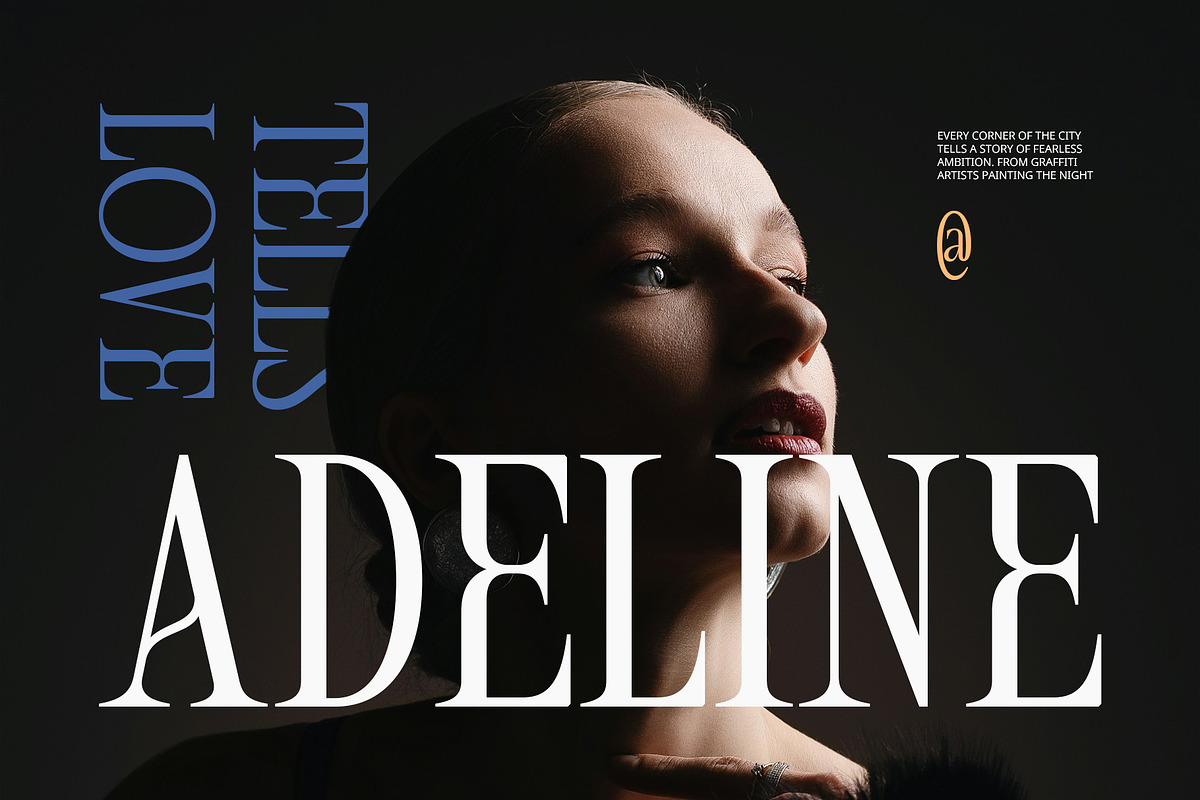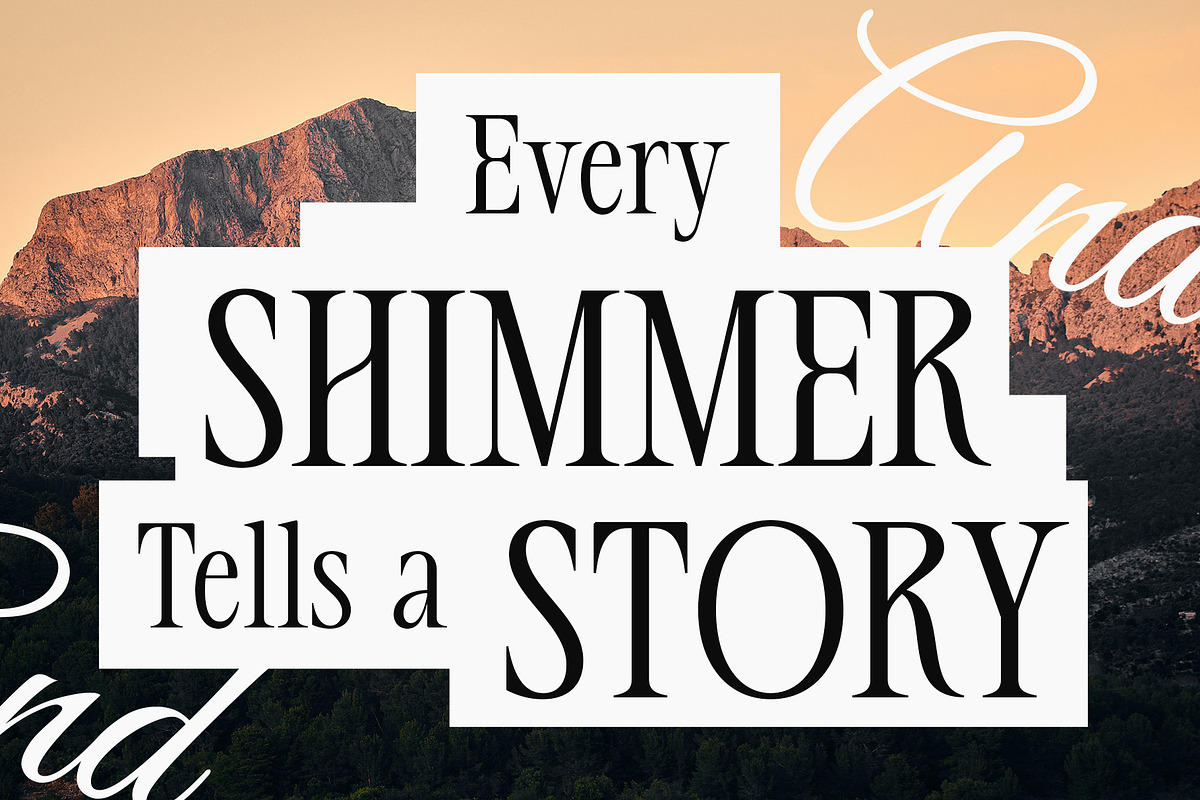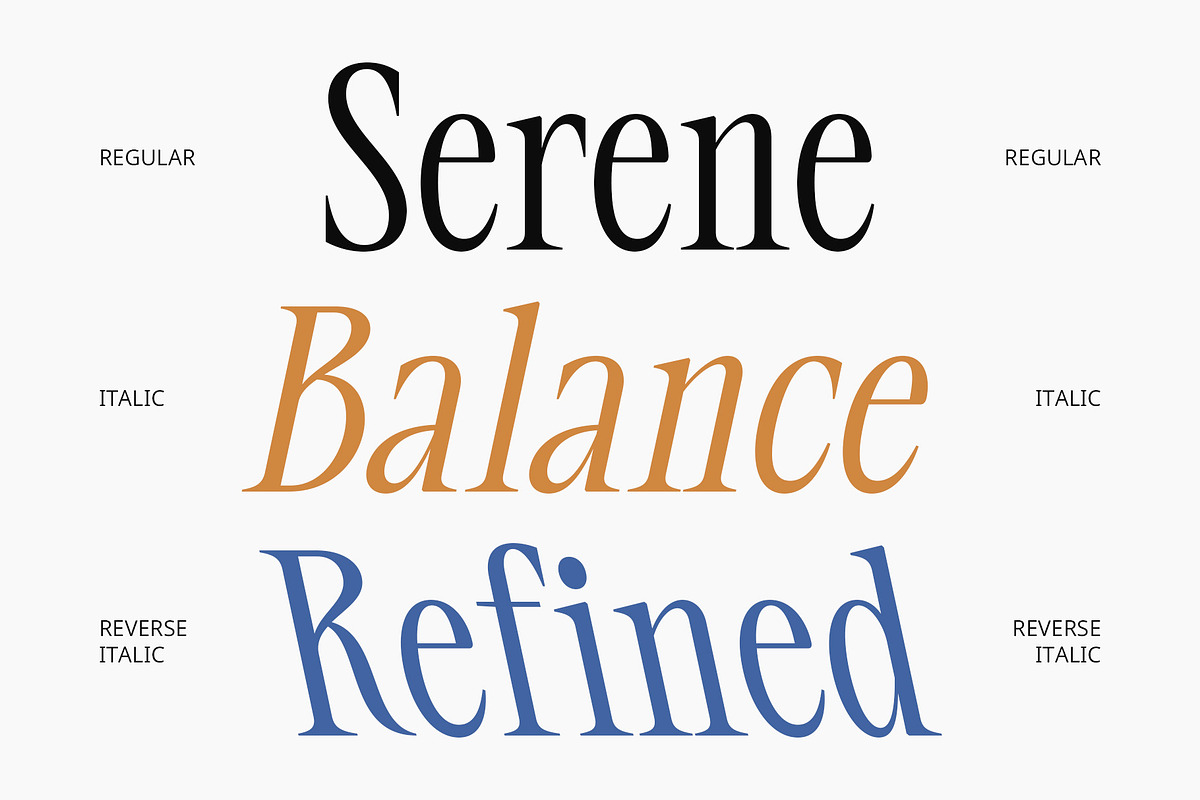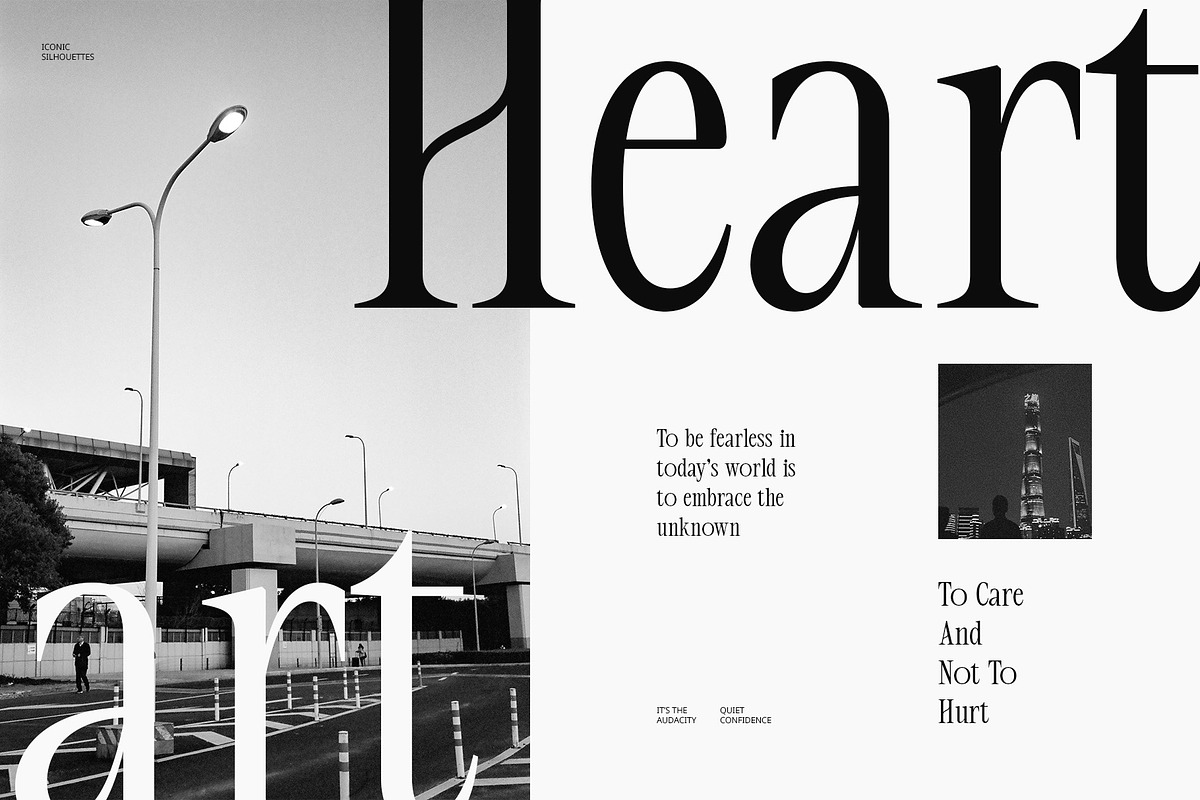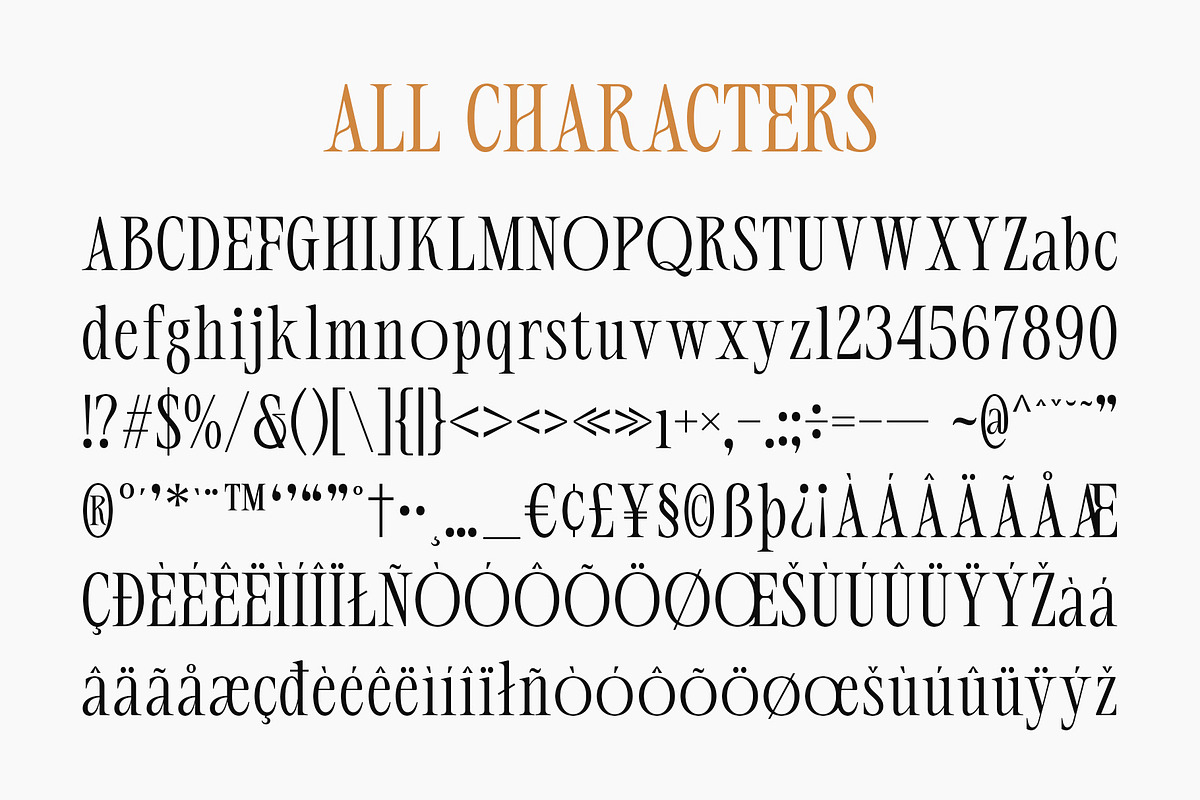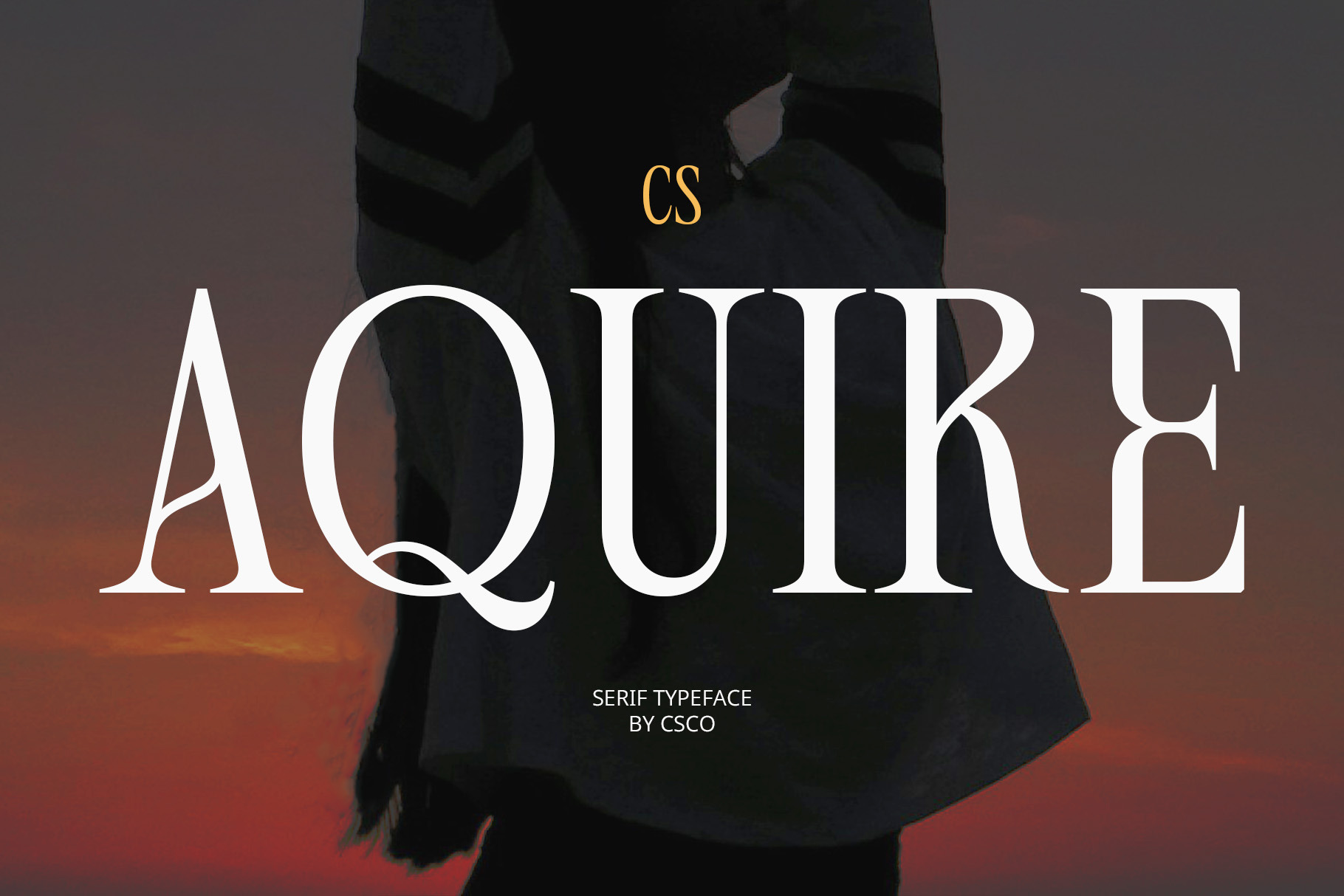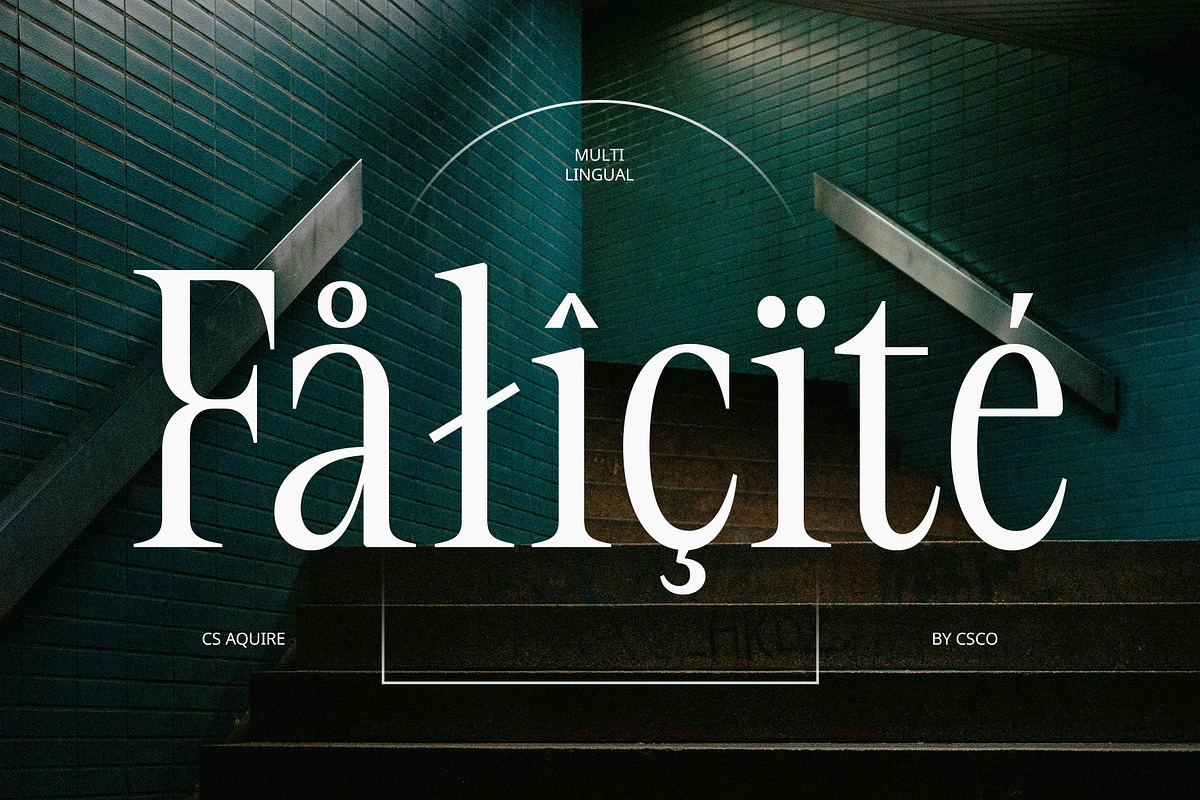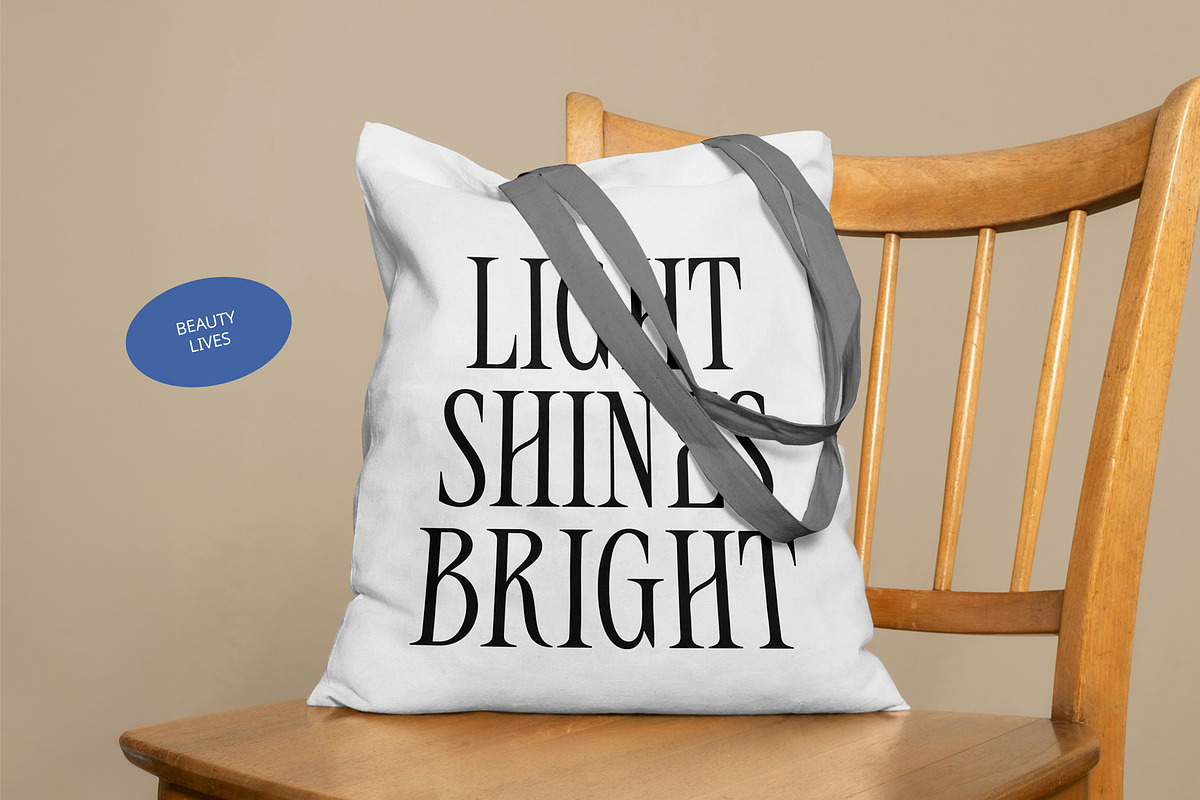
CS Aquire – Condensed Font
CS Aquire – Condensed Font: Elegance Refined Through Precision
Minimalist Structure with a Modern Serif Form CS Aquire is a modern serif font defined by its long, condensed serifs and clean structural design. With a focus on minimalism and refined proportions, this typeface delivers a sleek and contemporary appearance while retaining the elegance and authority of classic serif styles. Its narrow, tall letterforms offer a sophisticated and modern silhouette.
Condensed Design for Efficient and Stylish Layouts The condensed nature of CS Aquire makes it perfect for space-conscious designs without sacrificing visual impact. Its elongated letterforms are ideal for editorial layouts, magazine headlines, and luxury branding where clarity and style must coexist. This structure enhances the font’s usability in both digital and print formats.
Contemporary Elegance with Timeless Appeal CS Aquire blends timeless serif elegance with a distinctly modern tone. The precise lines and understated curves exude sophistication, offering a sense of high fashion and premium quality. Whether used for upscale logos, packaging, or refined typographic compositions, the font communicates grace and professionalism.
Perfect for High-End Branding and Editorial Design Designed to meet the demands of luxury aesthetics, CS Aquire is an excellent choice for high-end branding, fashion publications, and modern editorial projects. Its minimalism and elegance make it versatile across industries where a timeless, stylish impression is essential.
- CS Aquire Regular
- CS Aquire Italic
- CS Aquire Reverse Italic